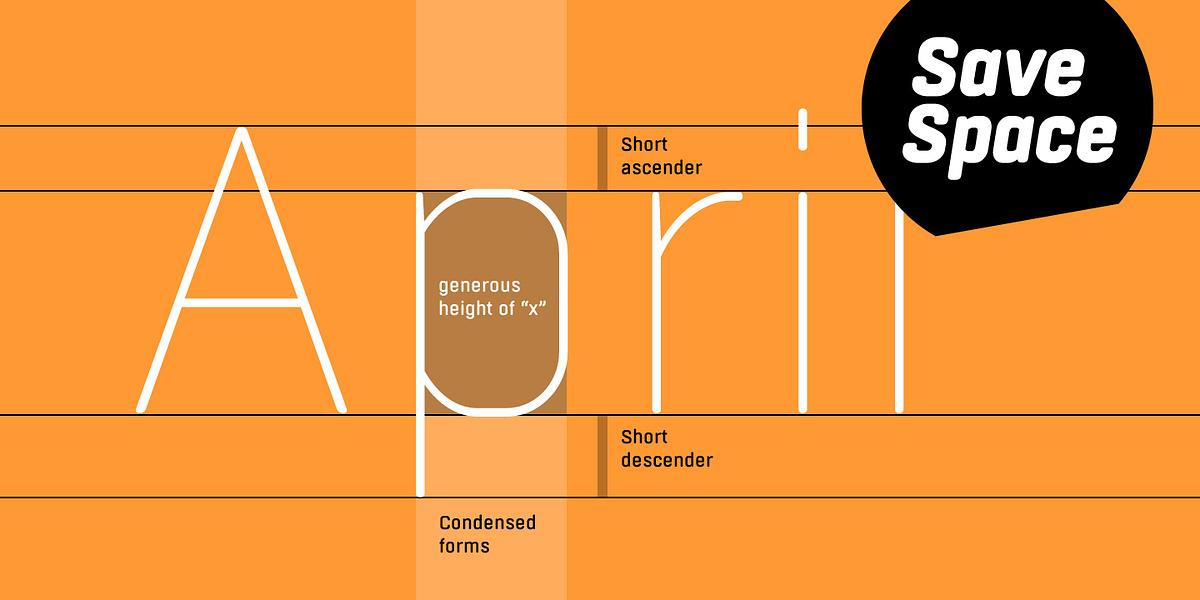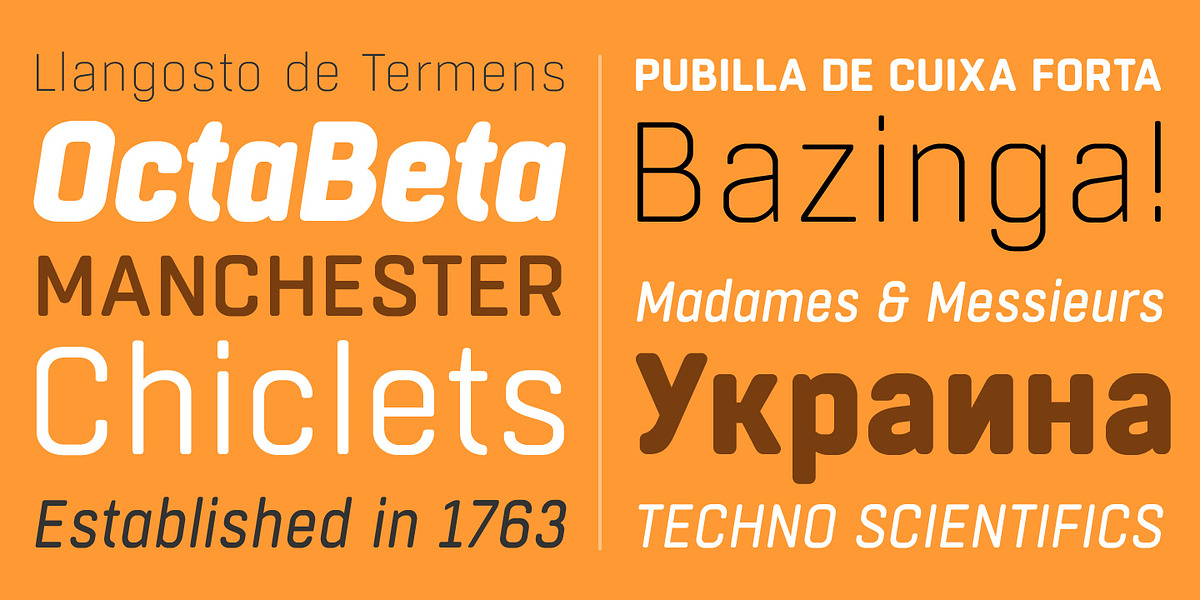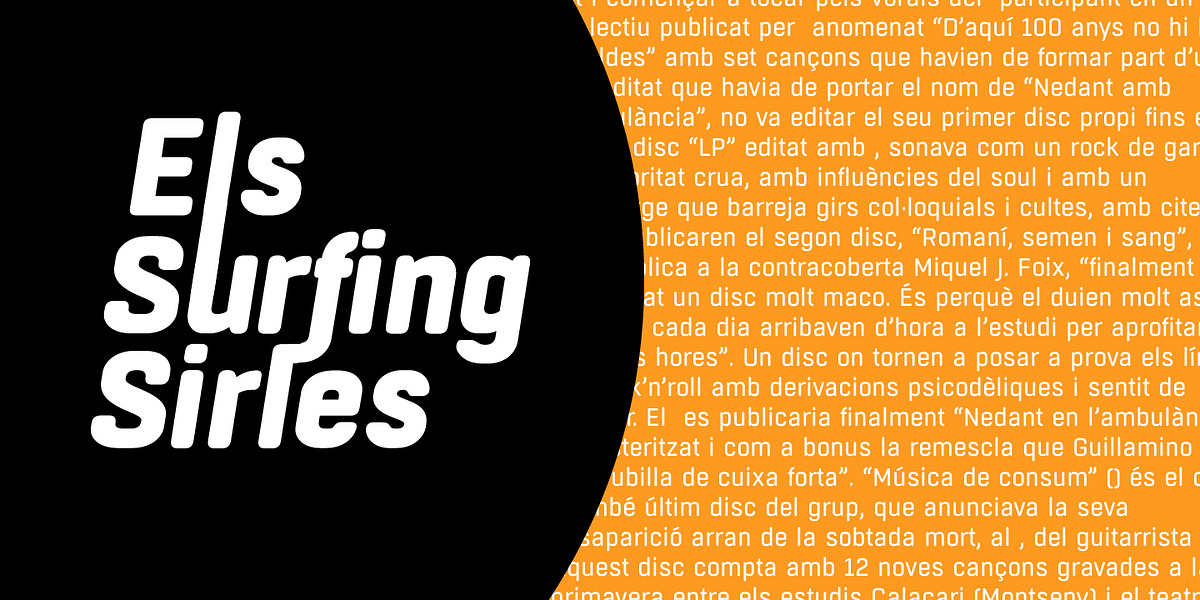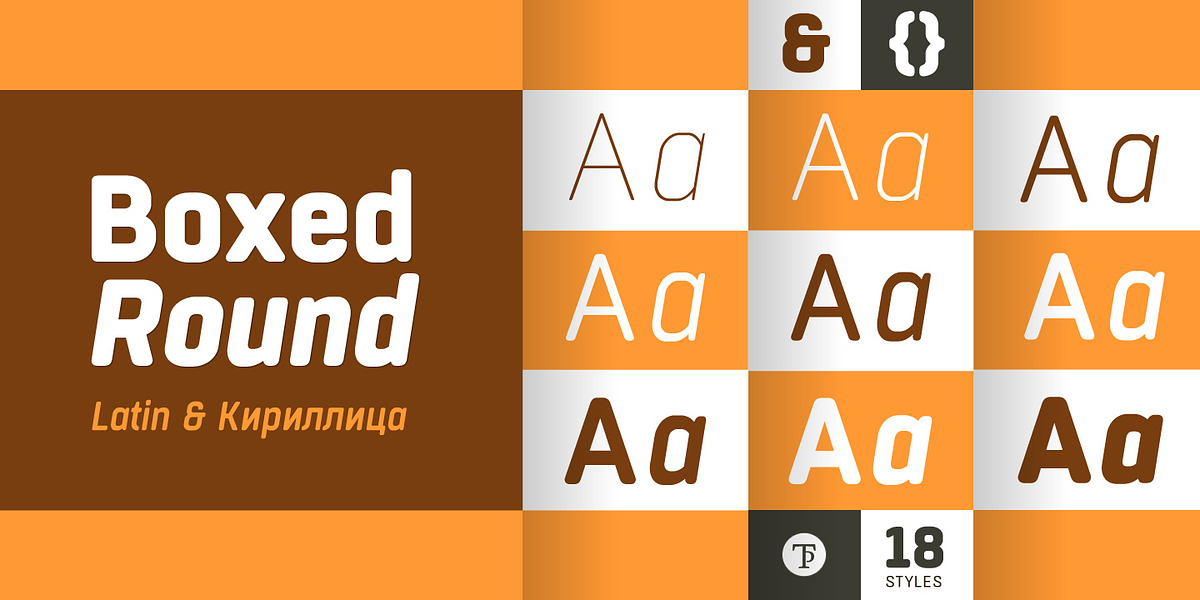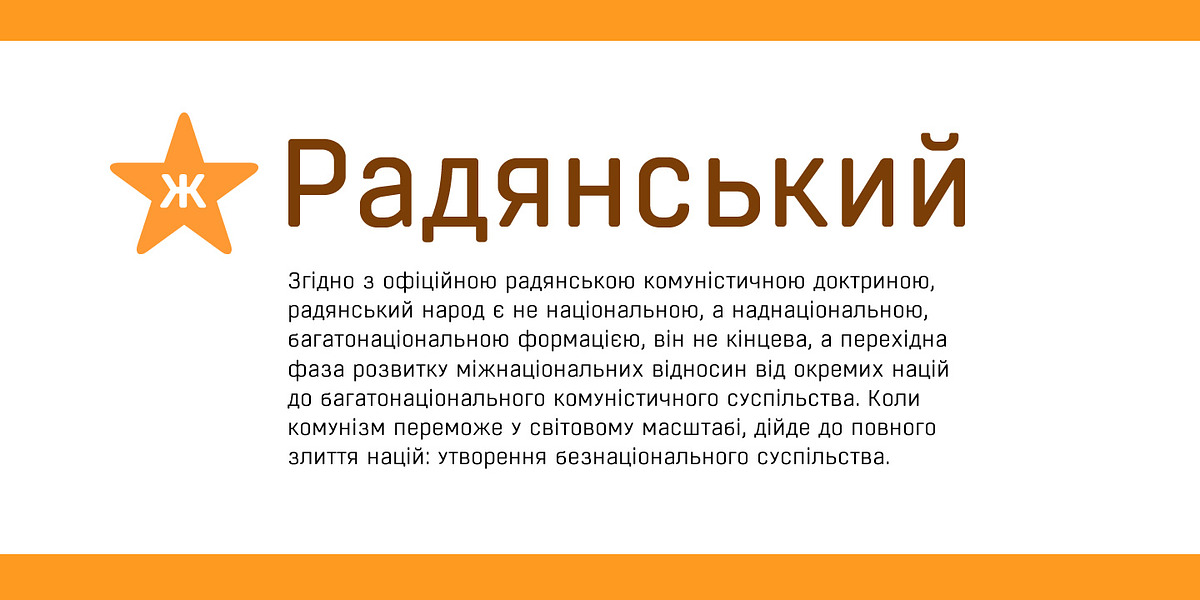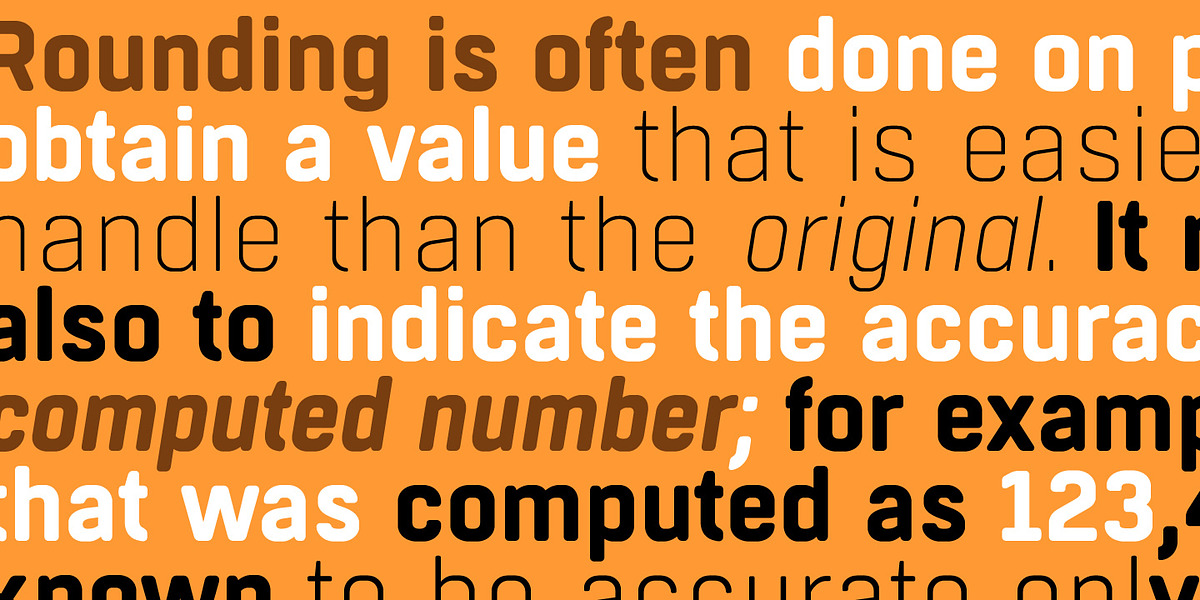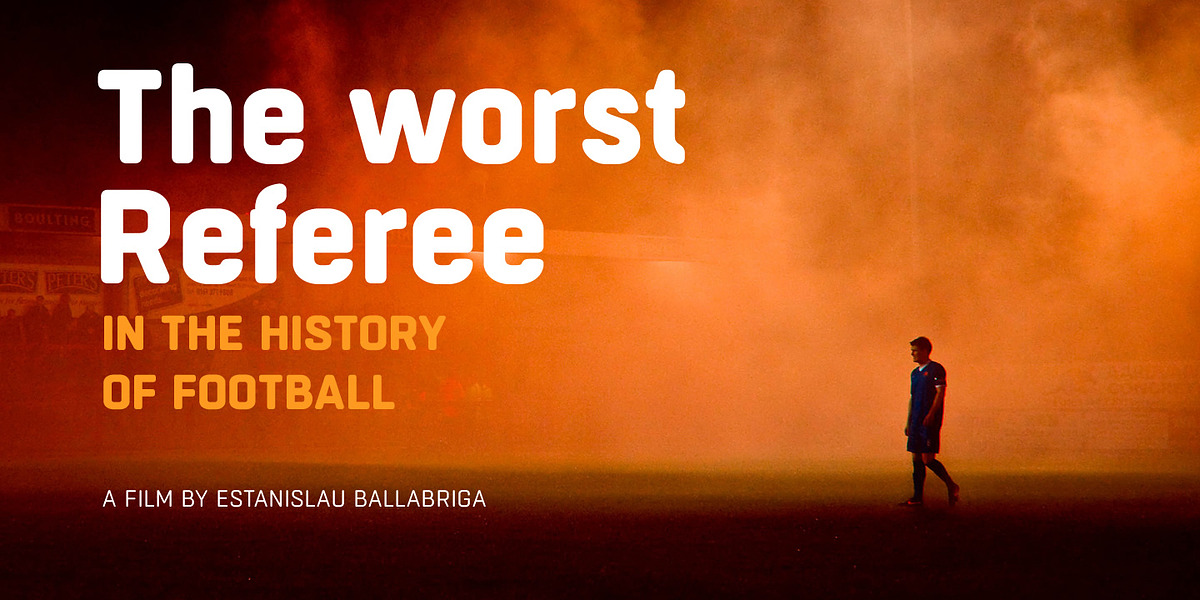
Boxed Round
Boxed Round is a rounded sans serif font designed for readability on screens. Its semi-modular geometric shapes are optimized for pixel grids, ensuring crisp text rendering. The rounded corners lend a friendly and approachable feel to the typeface. It offers an extensive range of weights, making it suitable for various applications from body text to headlines.